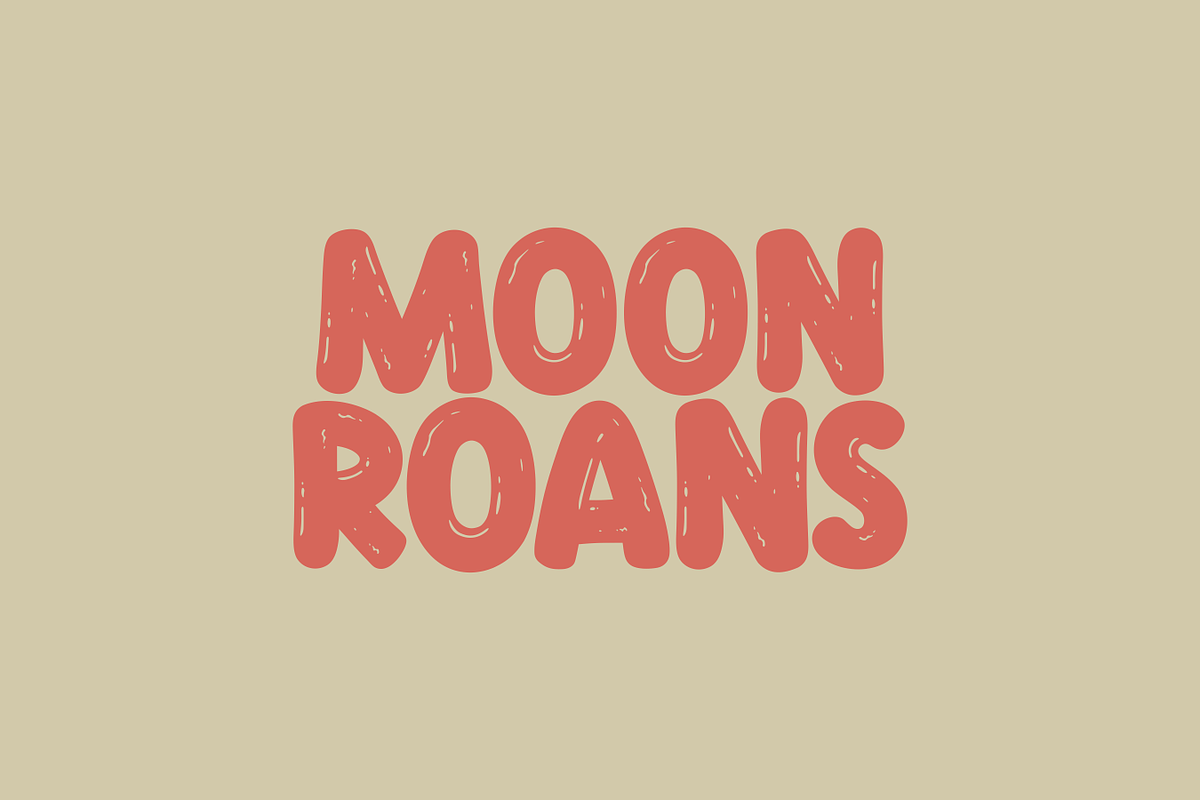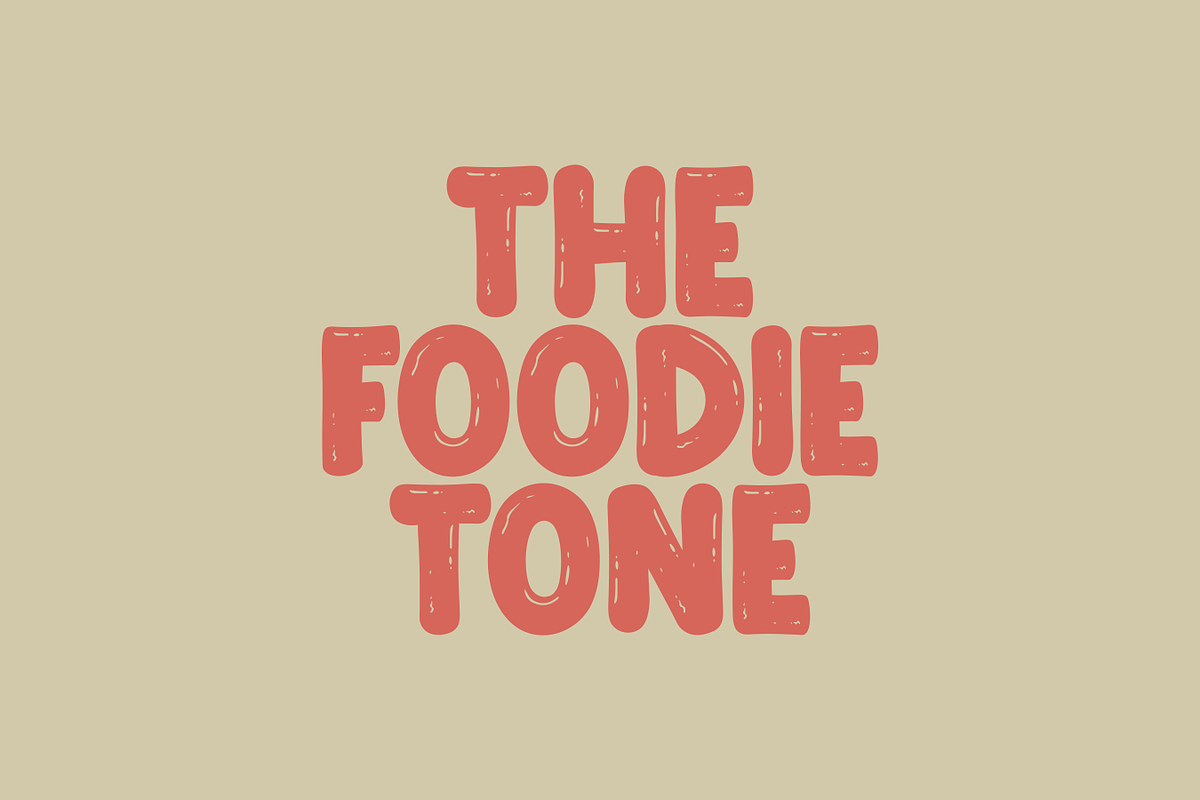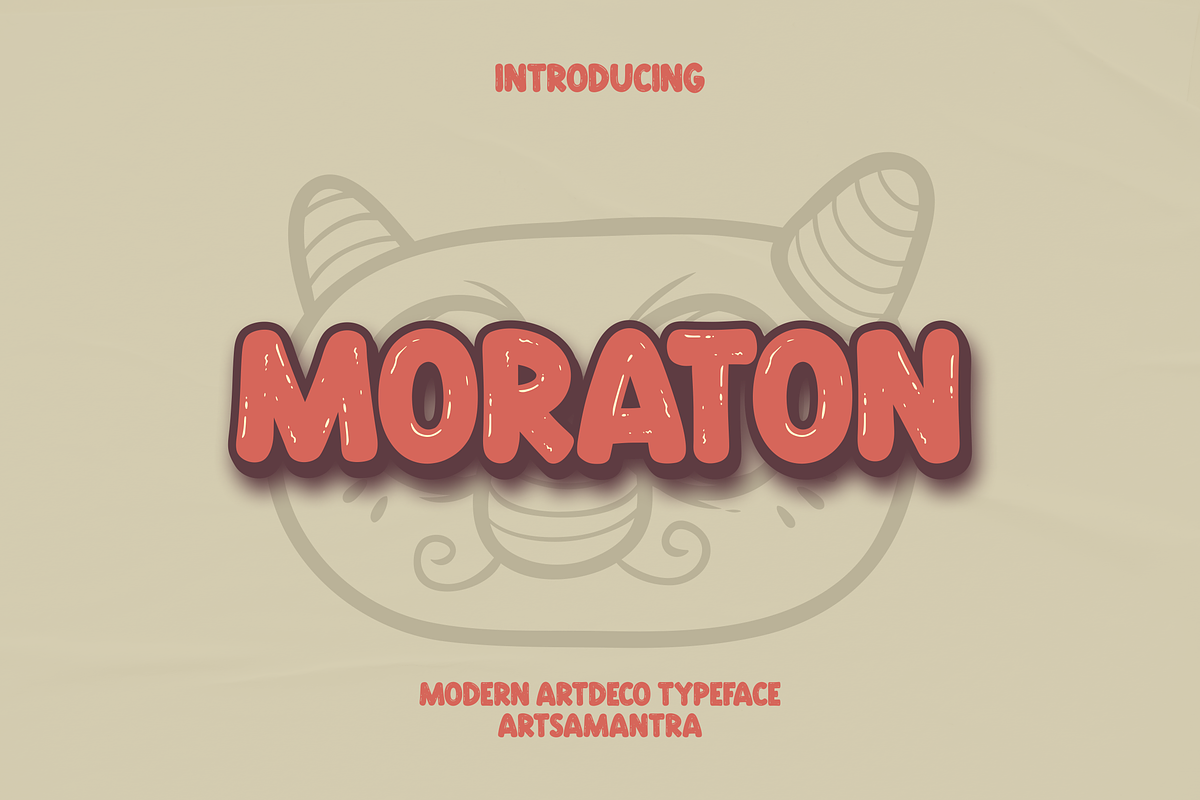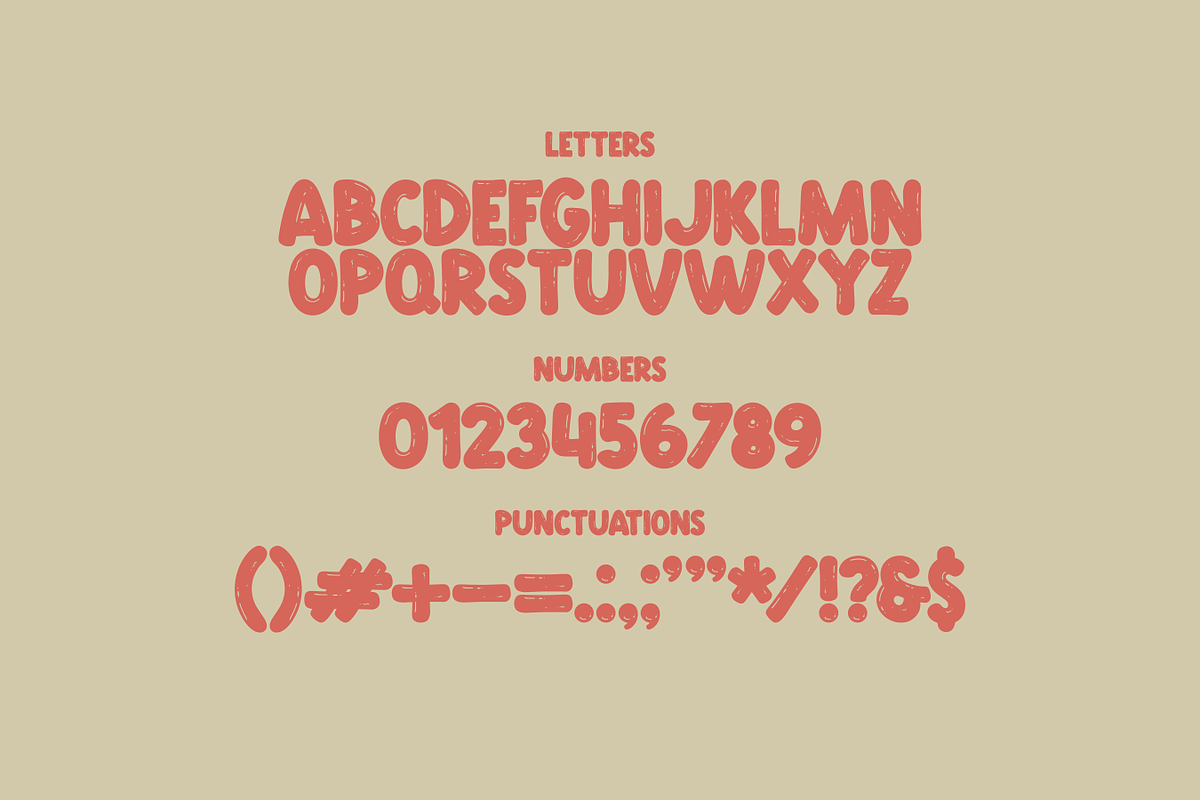
Moraton - Artdeco Typeface
Moraton is a decorative font with a unique and distinct style, coming with very impressive all-caps. Moraton is inspired by the shape of bubbles and combines childish handwriting to give a cheerful and funny feel. This font is great for branding, titles, posters, comics, signs and other designs